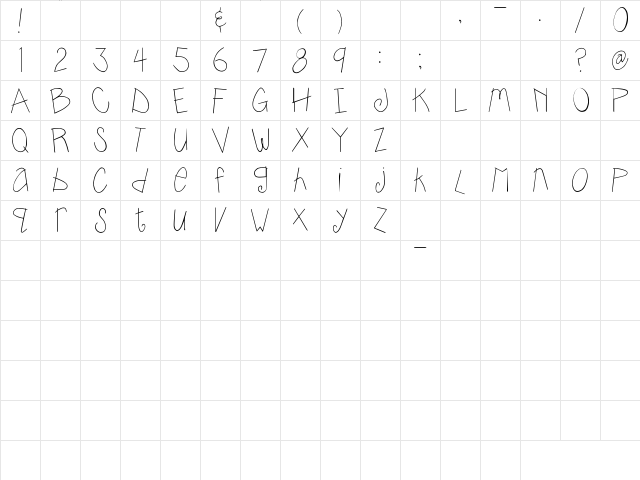
SBC Whimsy Joggle Regular
Design Context for SBC Whimsy Joggle Typeface
SBC Whimsy Joggle is a composed and adaptable typeface that performs quietly and consistently across a wide range of design contexts.